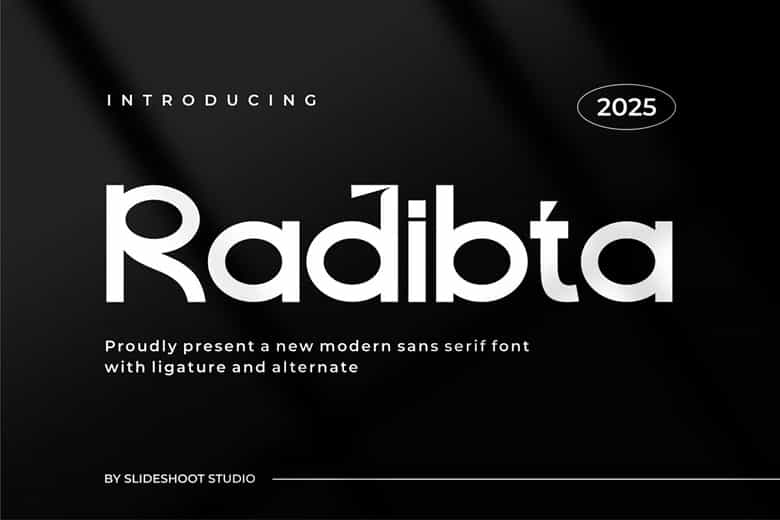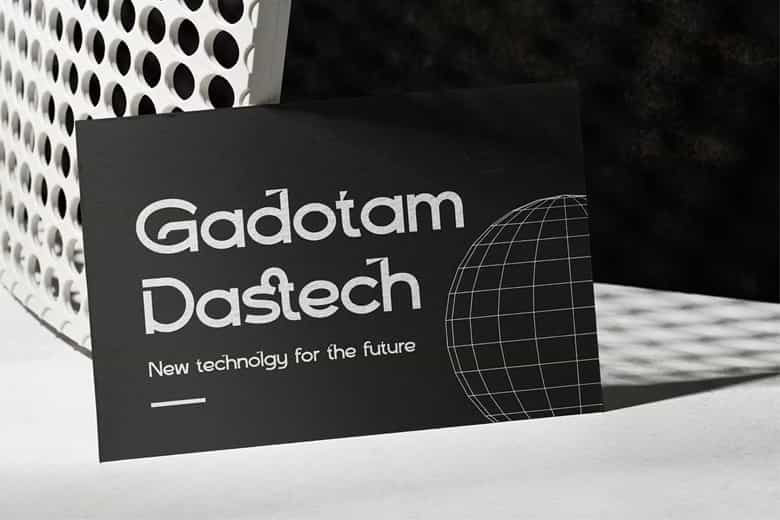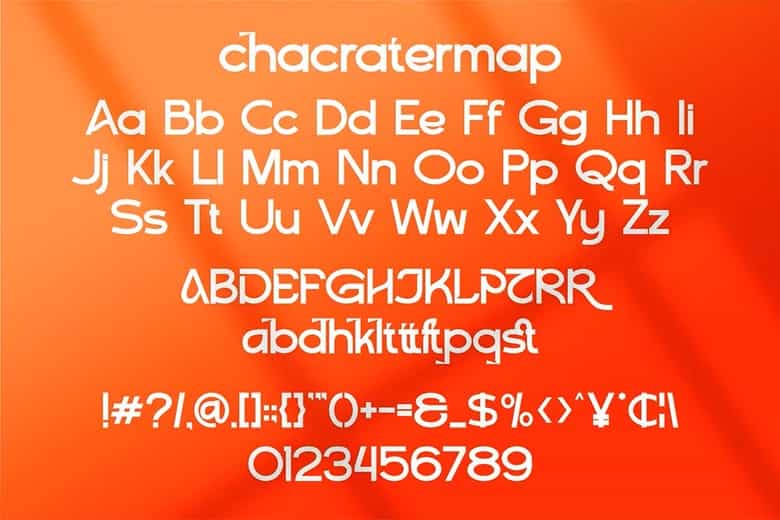
Radibta is a contemporary sans serif typeface that is perfect for all kinds of use. It also has a distinct personality in that it has a wooden feel to the room’s interior. It is perfect to combine with invitation card, design a company logo card, movie title, film name, business card, book, name for a business and many other designs.